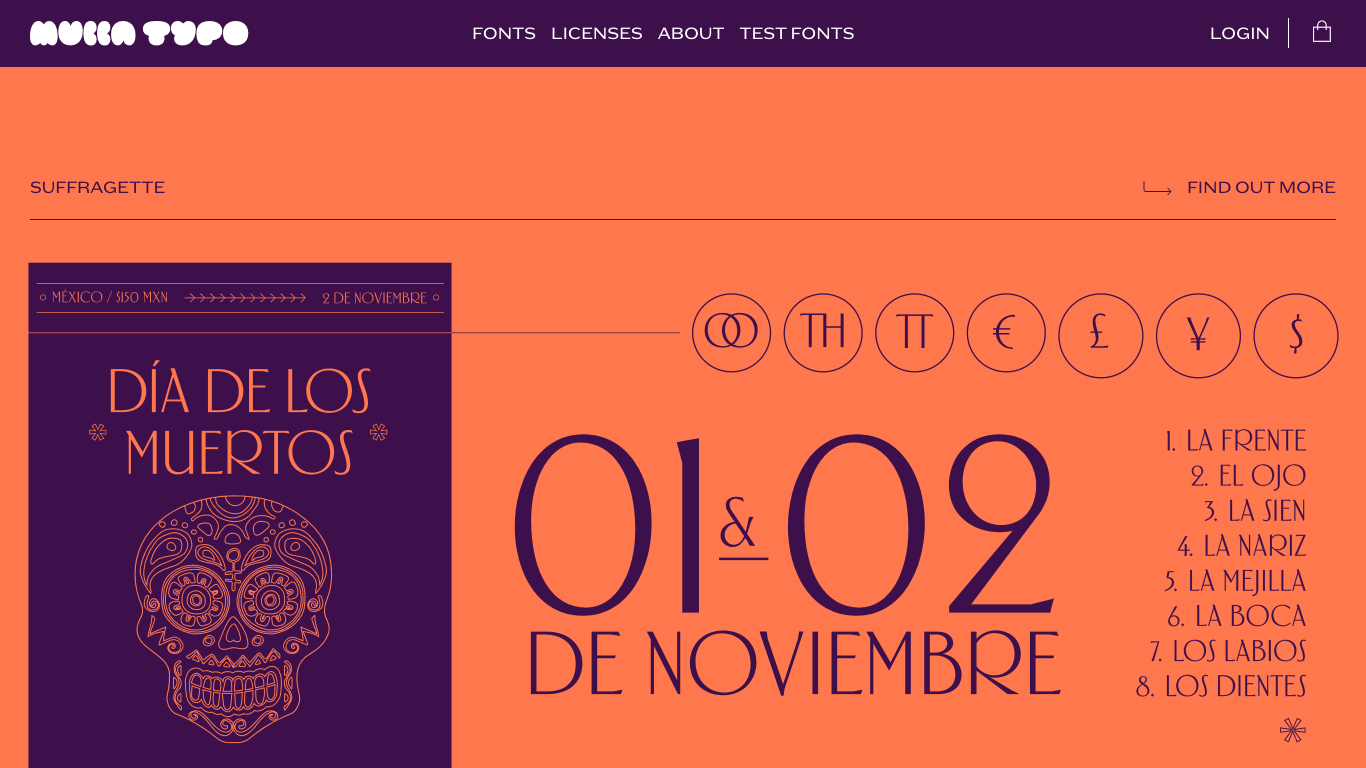
MuccaTypo is a New York-based type foundry founded by Matteo Bologna, the creative director of Mucca Design. Established as a spin-off from the branding agency, MuccaTypo offers a curated selection of typefaces originally developed for Mucca's branding projects, now available for broader use. Notable typefaces include Suffragette, Charlock, Seminario, Mostly Serif, NoEXIT Octagonal, and Sportivo. MuccaTypo's fonts have been utilized in various design projects, such as the AIGA NY 30th Anniversary Poster and branding for the Tin Building and The Hermitage Hotel.